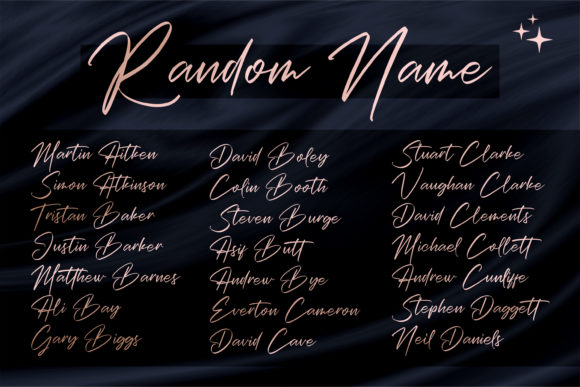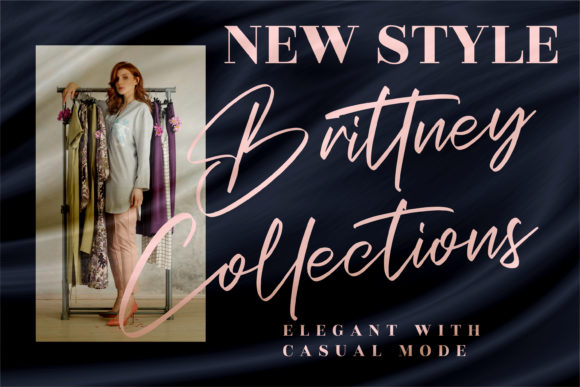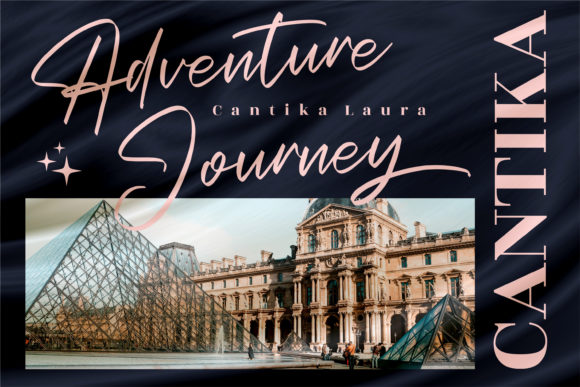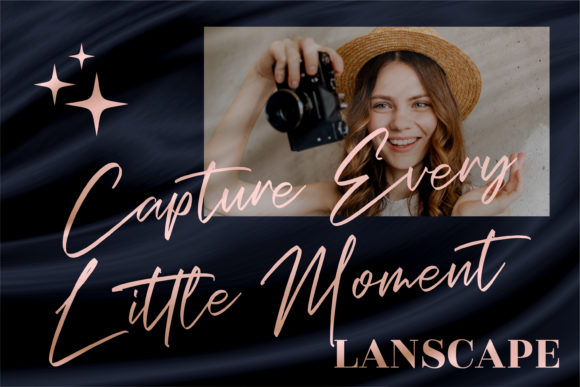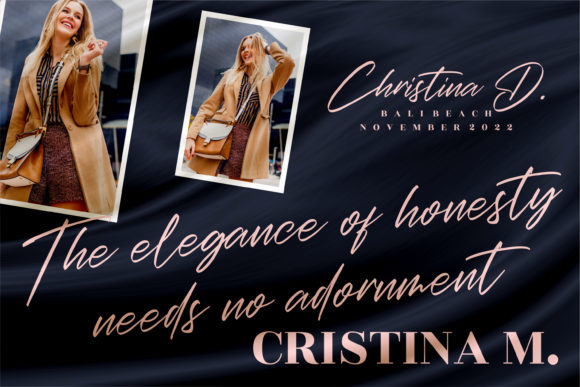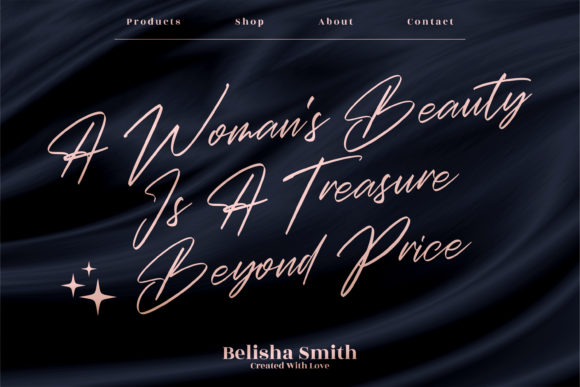
Introducing Christopher Signature Font: Elevate Your Designs with Elegance
Are you a designer or crafter looking for a font that adds a touch of sophistication and elegance to your creations? Look no further than Christopher Signature Font. This stunning script font is perfect for a variety of design projects, from wedding invitations and thank you cards to quotes, greeting cards, logos, and business cards. With its flowing and beautiful script, Christopher Signature Font is sure to make your designs stand out.
What Makes Christopher Signature Font So Special?
Christopher Signature Font is a cool, flowing, and beautiful script font that is designed to give your designs a customized touch. Its elegant and cursive script makes it perfect for designs that require a touch of sophistication and glamour. Whether you’re creating wedding invitations, greeting cards, or business cards, this font is sure to impress.
Key Features of Christopher Signature Font
- PUA Encoded: Christopher Signature Font is PUA encoded, which means you can access all of the glyphs and swashes with ease. This makes it easy to customize your designs and add unique touches.
- Wide Range of Uses: This font is perfect for a variety of design projects, including wedding invitations, thank you cards, quotes, greeting cards, logos, business cards, and more.
- Elegant and Cursive Script: The font’s elegant and cursive script makes it perfect for designs that require a touch of sophistication and glamour.
- Unique and Customized Designs: With Christopher Signature Font, you can create unique and customized designs that stand out from the crowd.
- Elegant and Sophisticated Look: The font’s elegant and cursive script gives your designs a sophisticated and glamorous look.
- Increased Creativity: With access to a wide range of glyphs and swashes, you can experiment with different design ideas and create something truly unique.
- Use Swashes and Glyphs: Use the font’s swashes and glyphs to add unique touches to your design.
Christopher Signature Font is a beautiful and elegant script font that is perfect for designers and crafters looking to add a touch of sophistication and glamour to their designs. With its PUA encoding, wide range of uses, and elegant script, this font is sure to make your designs stand out. Whether you’re creating wedding invitations, business cards, or quotes, Christopher Signature Font is the perfect choice.